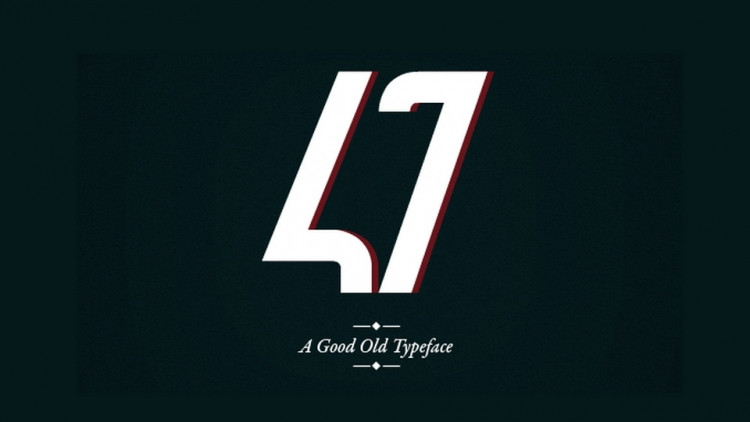
47 Typeface
This is a good old typeface. This is a fabulous new font that is easy to pair with others and yet strong enough to stand alone! If you are looking for letters with attitude, 47 Font is the perfect fit. A display san-serif typeface. Inspired by retro posters, signs, and photos of the past, while harnessing and inspiring the boldness that comes with facing the roads ahead. Its main use will be for graphic design, posters or collages. Of course, you are free to use it forever you want, feel free. The minimalistic design of the font allows to use it in nearly any environment, it fits anything.